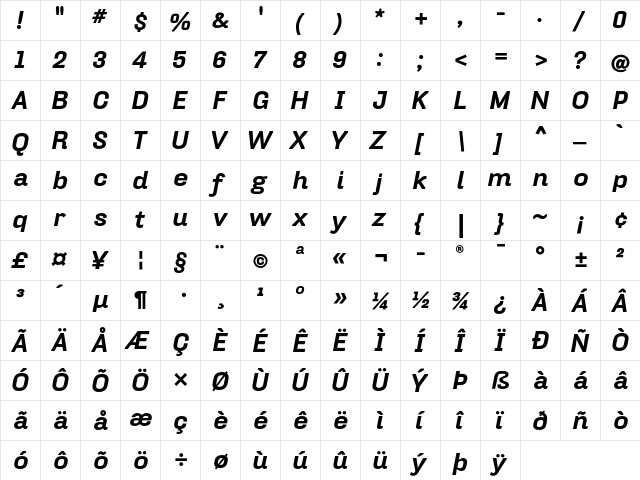
HydraText-BlackItalic Regular
Design Context for HydraText-BlackItalic Typeface
HydraText-BlackItalic takes a measured approach to typography — its balanced proportions and neutral character make it a reliable workhorse for both digital and print work. Its italic angle brings a sense of urgency and motion to the letterforms.
Pro Tip: Use HydraText-BlackItalic for emphasis, pull quotes, and subheadings where its slanted energy can add rhythm to the layout.